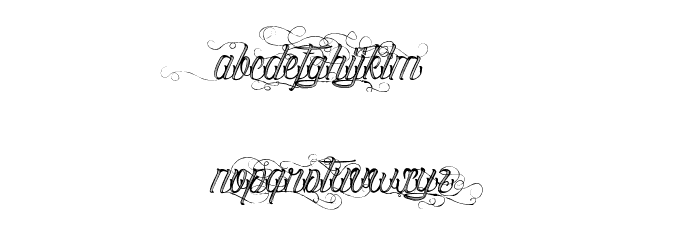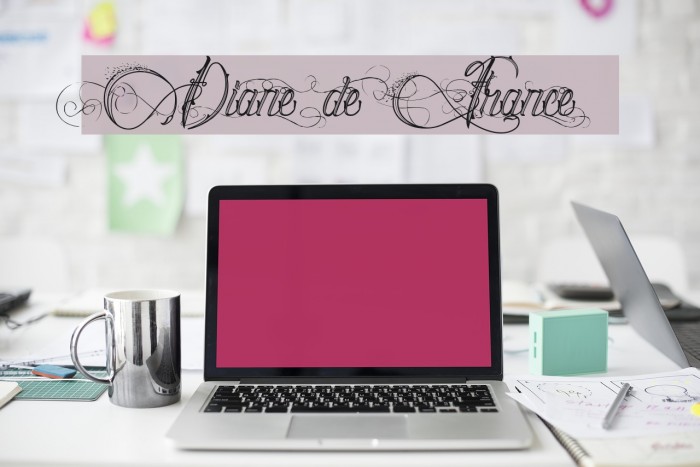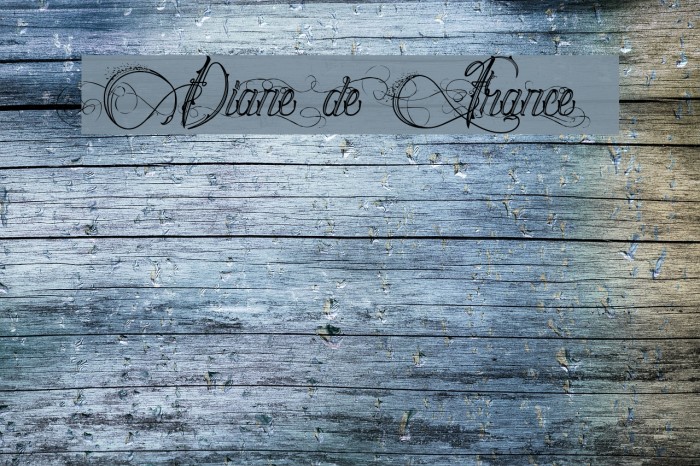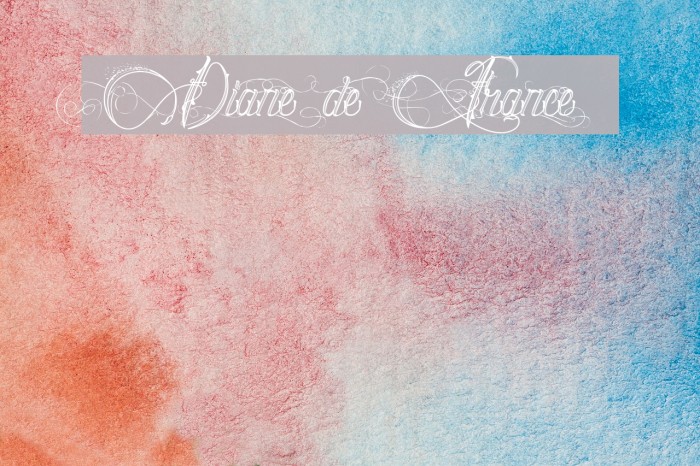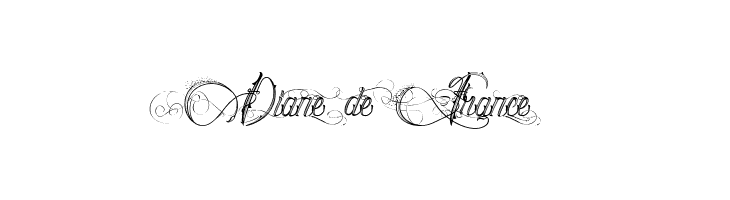
Diane de France Font
This font is an elegant and highly decorative script with intricate flourishes and swashes that extend from each character, creating a sense of grandeur and sophistication. The letters are interconnected with ornate loops and curves, giving it a flowing and continuous appearance. It features a high level of detail, making it suitable for formal and luxurious designs. The uppercase letters are particularly elaborate, while the lowercase letters maintain a consistent style with slightly less embellishment. This font is ideal for projects that require a touch of elegance and refinement.
An ornate and decorative script font with intricate flourishes.
- Proposed Projects: Ideal for wedding invitations, luxury branding, certificates, and high-end product packaging.
- Character Spacing: Tight
- Use Case: Logos, Invitations, Decorative headings